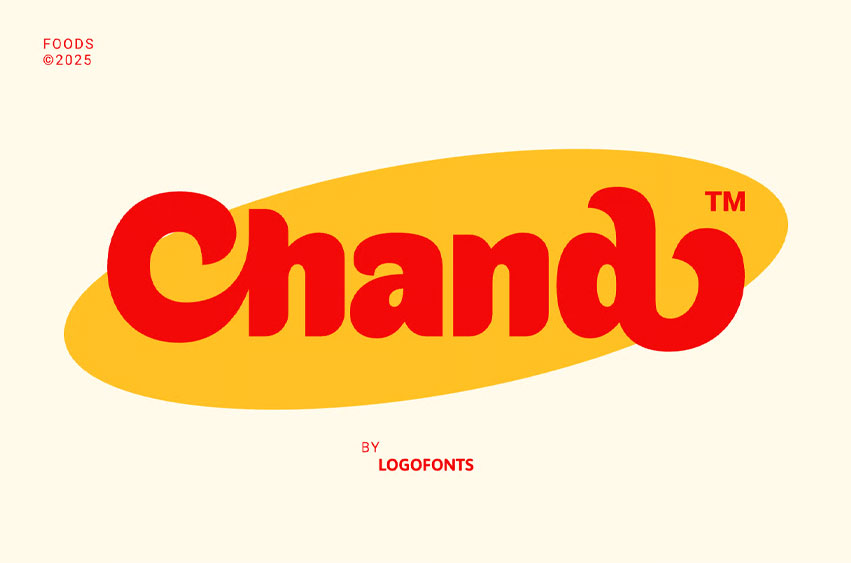
Chand Font
Chand Font is a charming display font inspired by the cozy atmosphere of cafés, bakeries, and restaurants. With its soft curves and friendly letterforms, Chand brings warmth and personality to any food-related brand identity.
Perfect for menus, coffee shop logos, burger joints, or dessert packaging, this font adds a handcrafted touch that is both inviting and professional.
Designed for readability and style, Chand works beautifully in both print and digital use — from logo design to packaging labels or restaurant signage.
Designed for elegance, crafted for timeless branding.